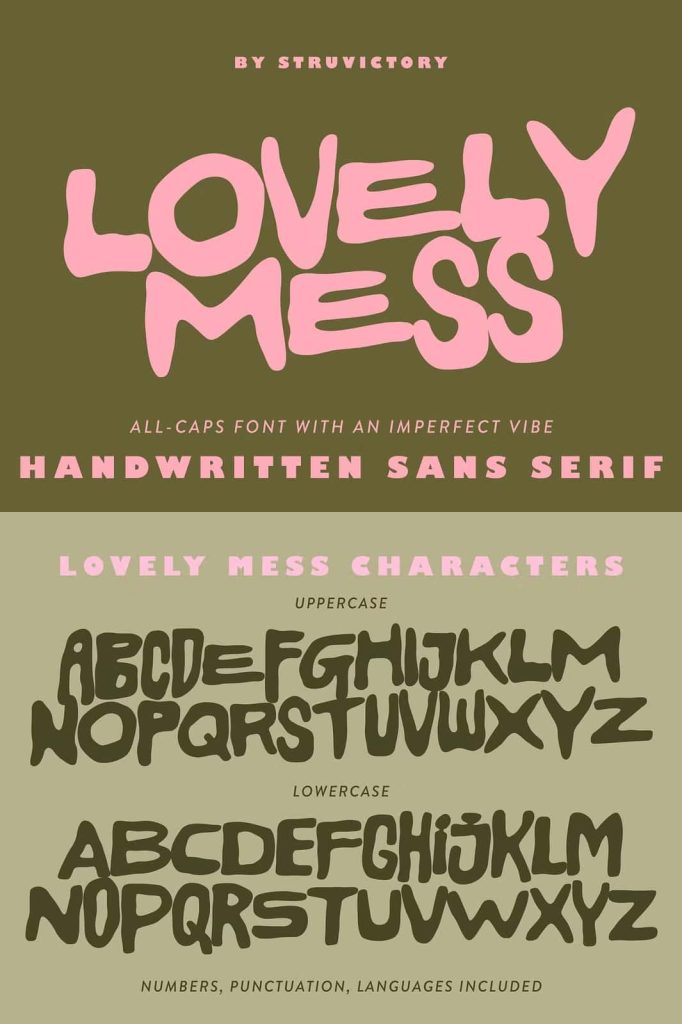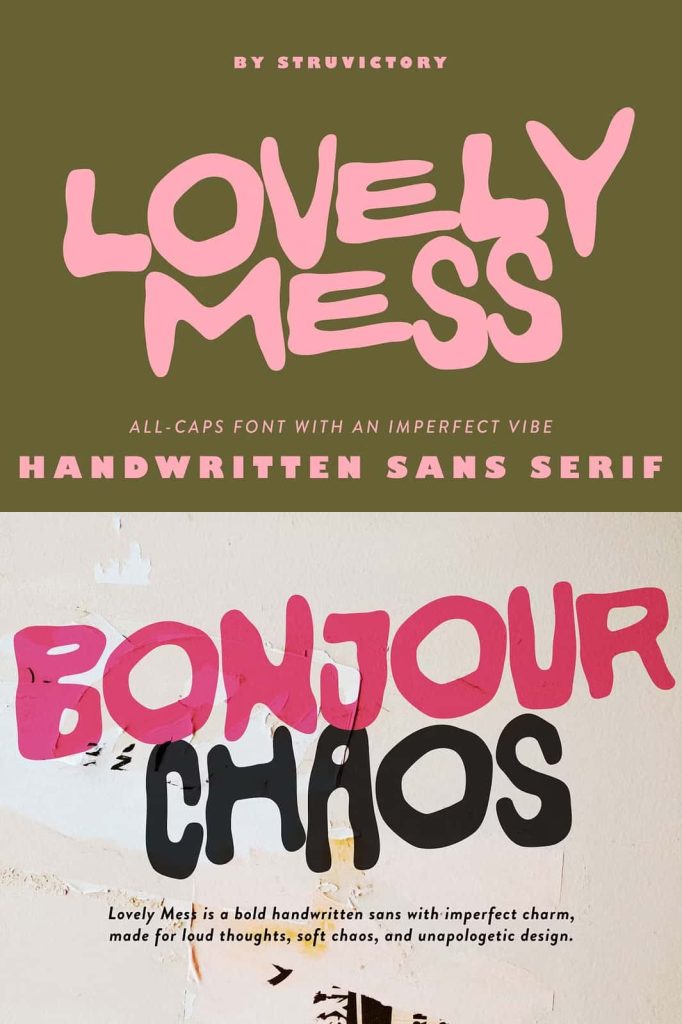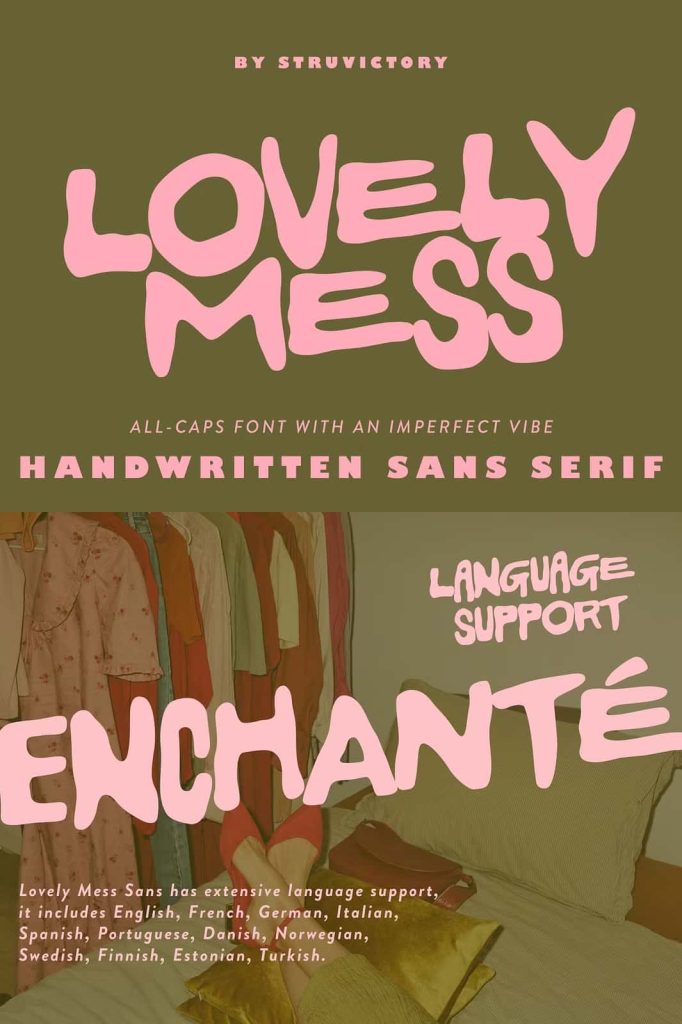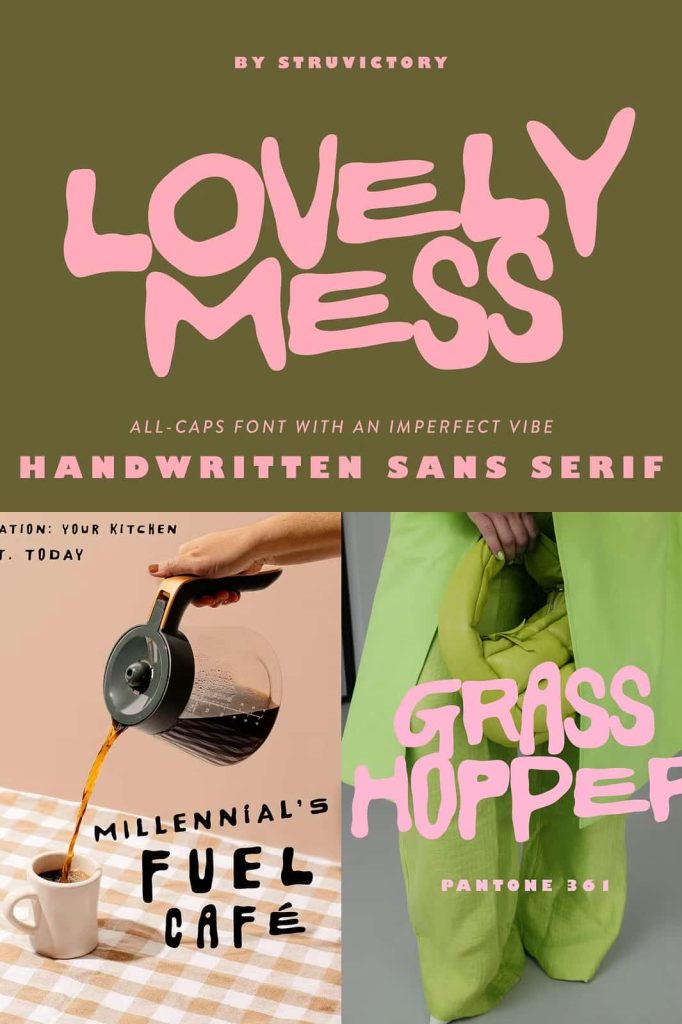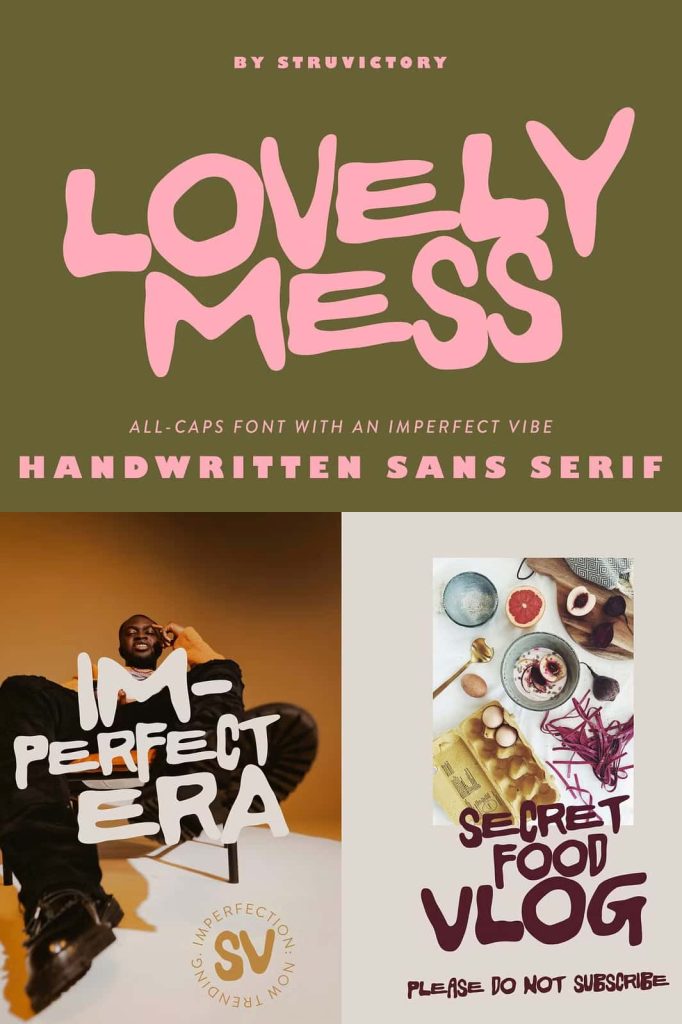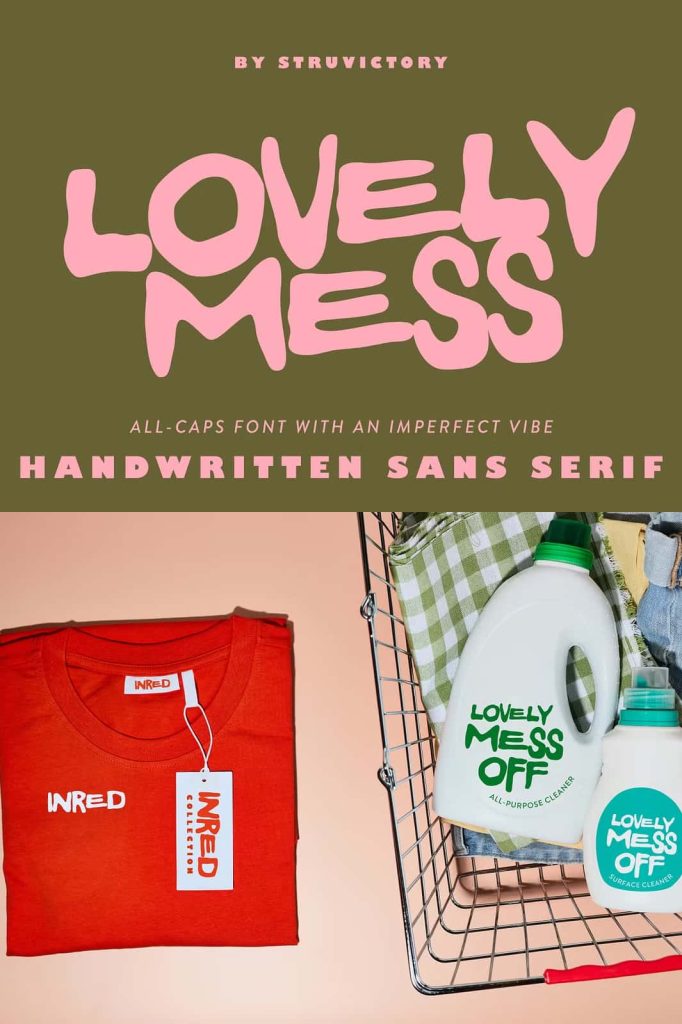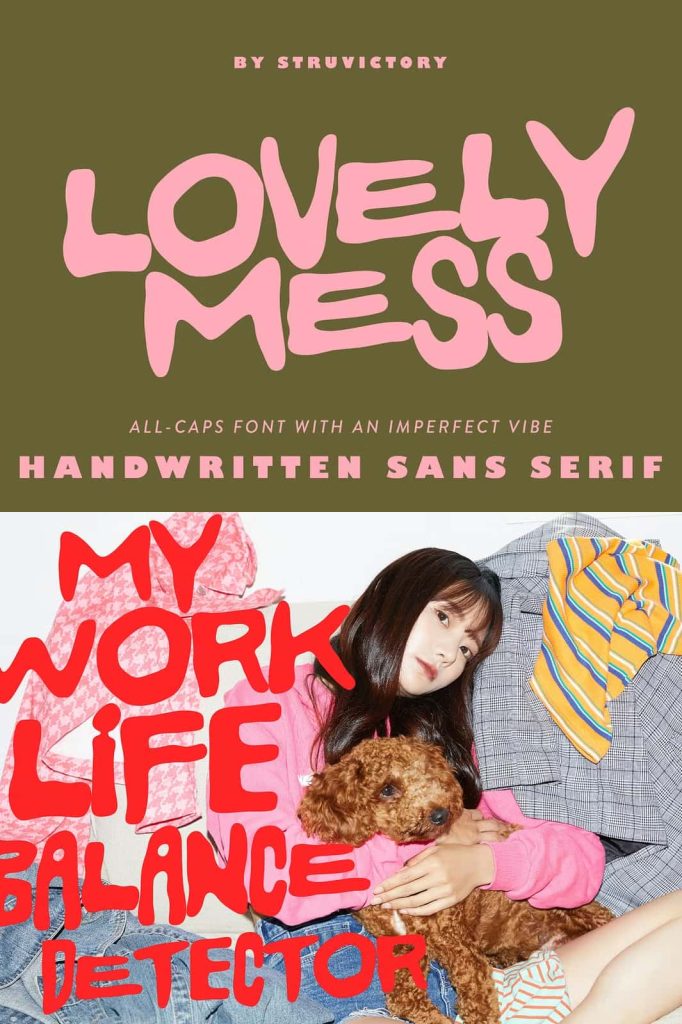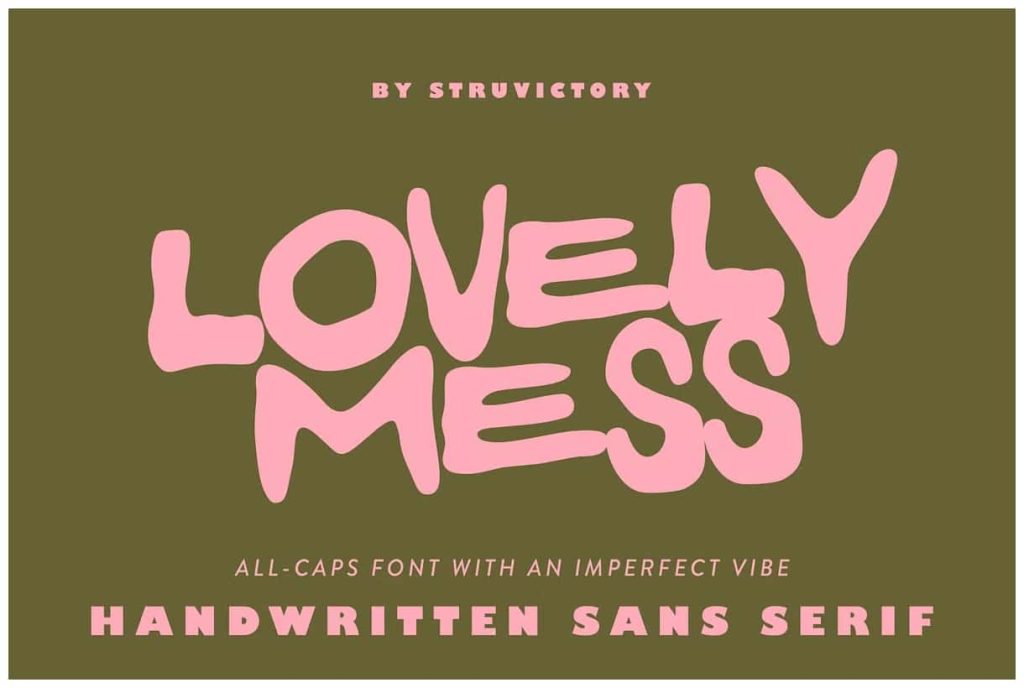
Lovely Mess is a hand-drawn all-caps sans serif font with an organic, imperfect personality. Its relaxed structure and quirky edges give off a cool, effortless vibe.